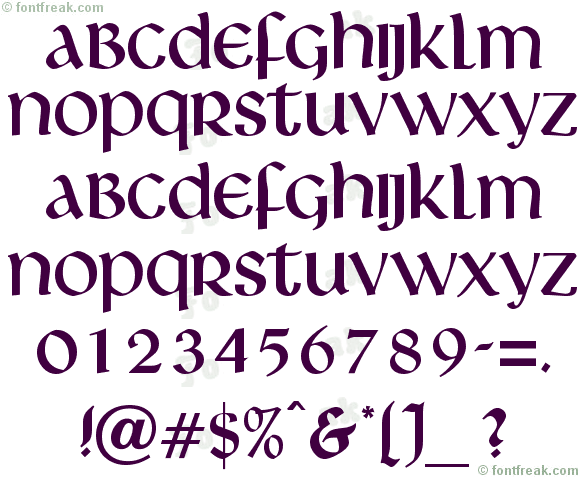
Livingstone
About Livingstone
The Livingstone font, crafted by Primafont in 1995, is a captivating decorative typeface that stands out with its unique blend of elegance and artistic flair. This font features a distinctive stroke weight that varies throughout its characters, creating a sense of movement and dynamism. The contrast in the letters enhances their visual appeal, while the spacious kerning ensures readability without compromising style. Livingstone is adorned with subtle decorative elements that evoke a whimsical yet sophisticated feel, making it an excellent choice for a variety of applications.
Ideal use cases for the Livingstone font include wedding invitations, where its romantic and charming aesthetic can set the perfect tone for the occasion. It also shines on movie posters, lending a touch of creativity and allure that captures the audience's attention. Restaurant menus can benefit from its artistic flair, enhancing the dining experience by reflecting the establishment's unique ambiance. Additionally, the font is a great choice for branding projects, particularly for small businesses looking to convey a sense of personality and approachability.
What sets the Livingstone font apart is its ability to balance artistic expression with practicality. Its distinctive style not only captures attention but also ensures clarity, making it a reliable choice for any designer's toolkit. For those interested in enhancing their design projects, a Livingstone font free download is readily available, inviting you to explore its unique charm and versatility.